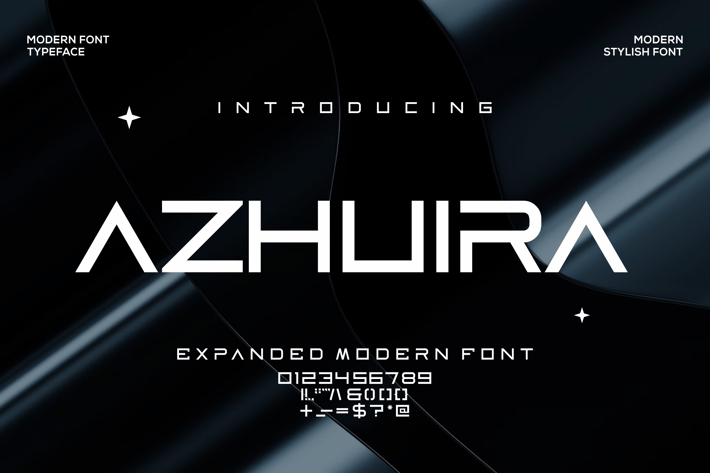
Azhuira Font
oducing our new product Azhuira Font - Modern Font
Azhuira Font - Modern Font is a bold and authentic display font. The font is suitable for any branding project like logo, esport, and many more. outstanding in a wide range of contexts.